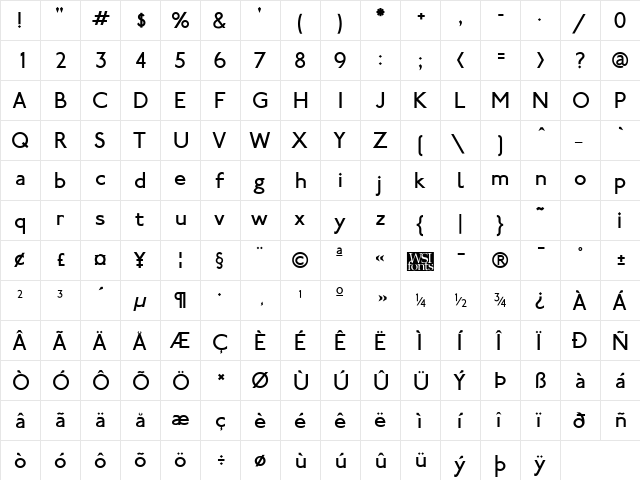
SubwayLondon Regular
Design Context for SubwayLondon Typeface
SubwayLondon is a composed and adaptable typeface that performs quietly and consistently across a wide range of design contexts.